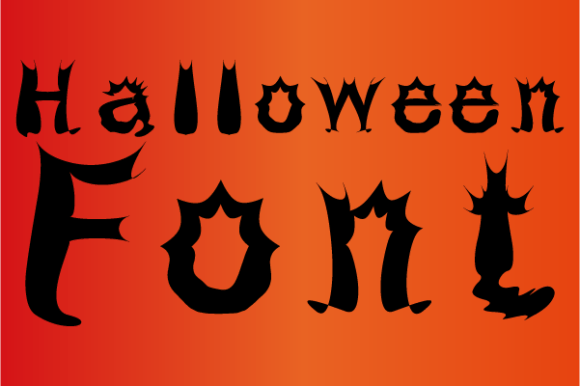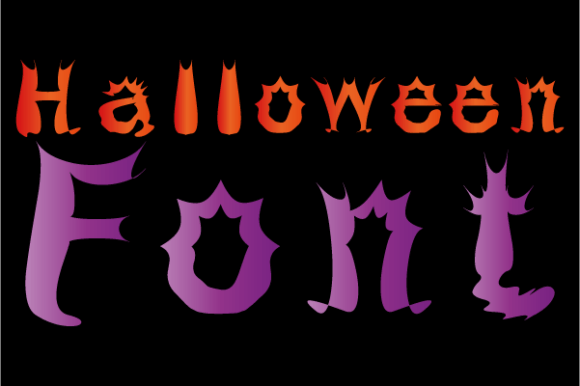
Unleash the Spooky Spirit: A Comprehensive Guide to Halloween Font
Halloween is just around the corner, and with it comes the excitement of creating spooky and fun designs for invitations, posters, stickers, and more. If you’re a designer or crafter looking to add a touch of eeriness to your projects, you’ve come to the right place. In this article, we’ll dive into the world of Halloween fonts, with a special focus on the “Halloween Font” – a fun and spooky display font perfect for all your Halloween design needs.
What is Halloween Font?
Halloween Font is a display font designed to capture the essence of the spookiest time of the year. With its bold and quirky style, this font is ideal for creating eye-catching invitations, posters, stickers, and any other design that requires a scary vibe. Whether you’re planning a Halloween party, creating decorations, or simply want to add a touch of Halloween spirit to your craft projects, this font is sure to impress.
Key Features of Halloween Font
- Unique and Quirky Style: Halloween Font boasts a distinctive and playful style that’s sure to stand out in any design.
- Perfect for Display Text: This font is specifically designed for display text, making it ideal for titles, headings, and short phrases.
- Spooky yet Fun: The font strikes the perfect balance between spooky and fun, making it suitable for a wide range of Halloween-themed projects.
- Easily Readable: Despite its bold and quirky style, Halloween Font remains easily readable, even at smaller sizes.
Uses for Halloween Font
The versatility of Halloween Font makes it a valuable addition to any designer’s toolkit. Here are some ideas for using this font in your projects:
- Halloween Invitations: Create spooky and fun invitations for Halloween parties, trick-or-treat events, or haunted house attractions.
- Posters and Flyers: Design eye-catching posters and flyers for Halloween events, such as pumpkin carving contests, costume parties, or horror movie screenings.
- Stickers and Decals: Use Halloween Font to create stickers and decals for laptops, water bottles, or any other surface that needs a touch of Halloween spirit.
- Craft Projects: Add a personal touch to your craft projects, such as Halloween-themed cards, gift tags, or decorations.
Tips for Using Halloween Font
To get the most out of Halloween Font, here are some tips to keep in mind:
- Experiment with Colors: Halloween Font looks great in a variety of colors, from traditional orange and black to bold and bright hues.
- Mix and Match Fonts: Combine Halloween Font with other fonts to create a unique and visually appealing design.
- Play with Text Effects: Add depth and interest to your text with effects like shadows, outlines, or textures.
Halloween Font is a fantastic addition to any designer’s toolkit, offering a unique and quirky style that’s perfect for creating spooky and fun designs. With its bold and easily readable style, this font is ideal for a wide range of Halloween-themed projects, from invitations and posters to stickers and craft projects. So why not give Halloween Font a try and unleash the spooky spirit in your designs?
Whether you’re a seasoned designer or a crafty DIY enthusiast, Halloween Font is sure to inspire your creativity and help you create designs that are both spooky and fun. So go ahead, get creative, and have a Happy Halloween!